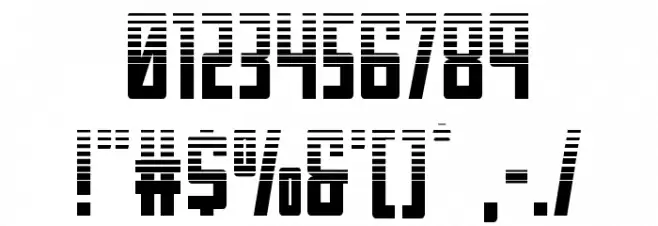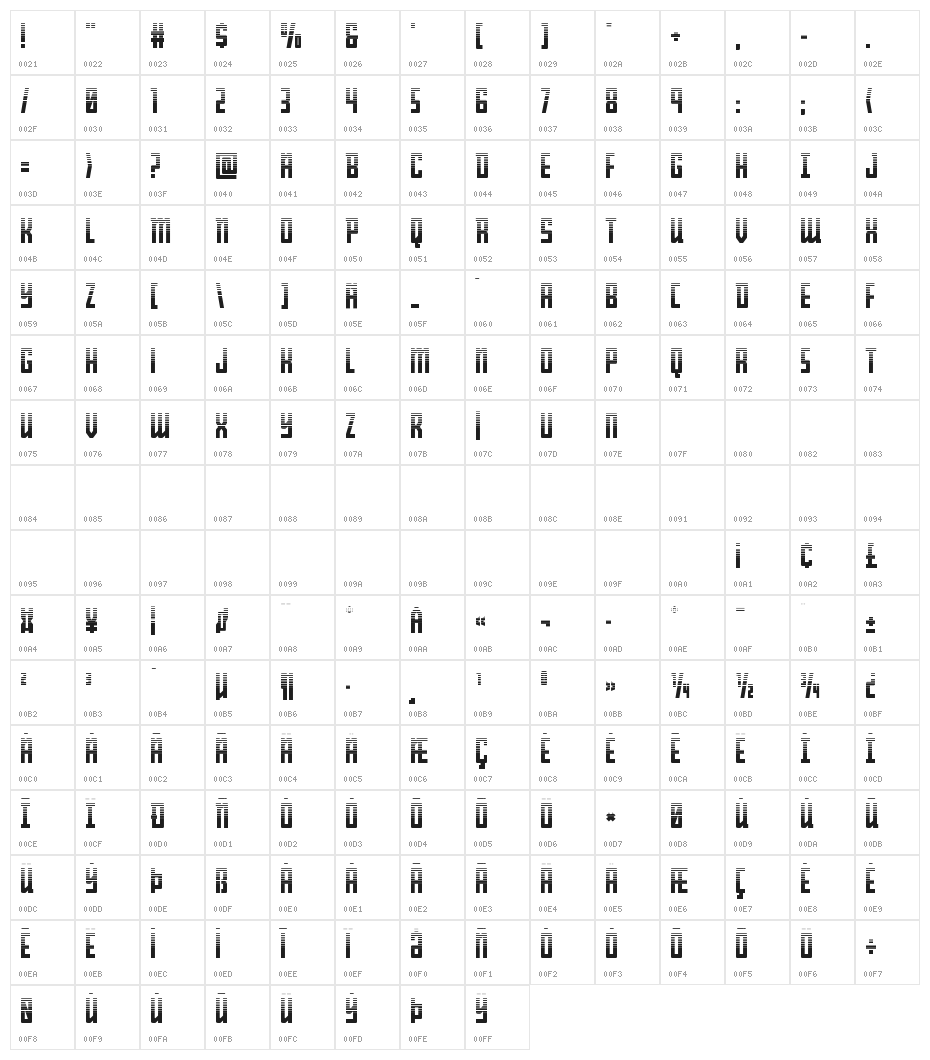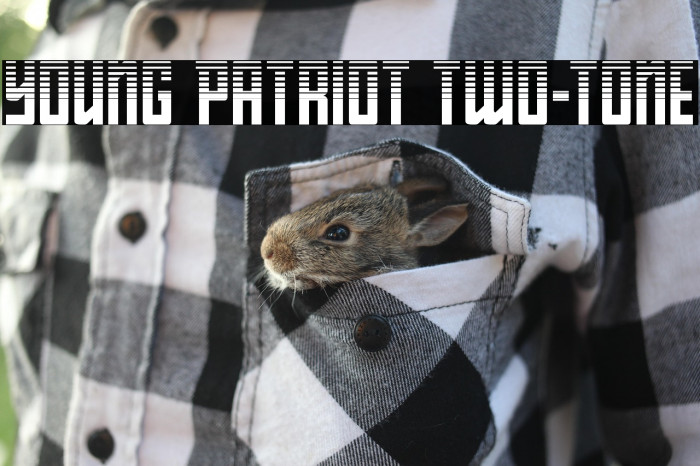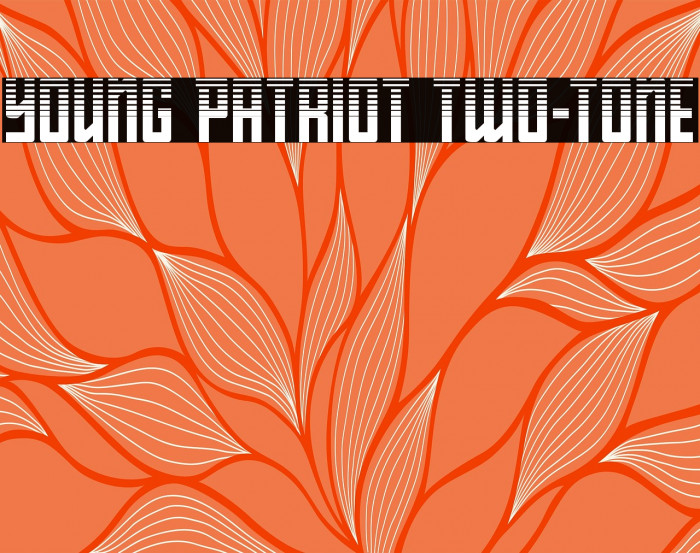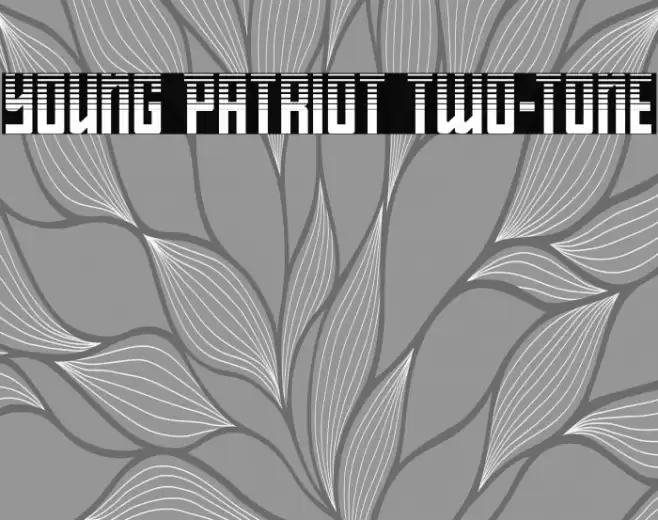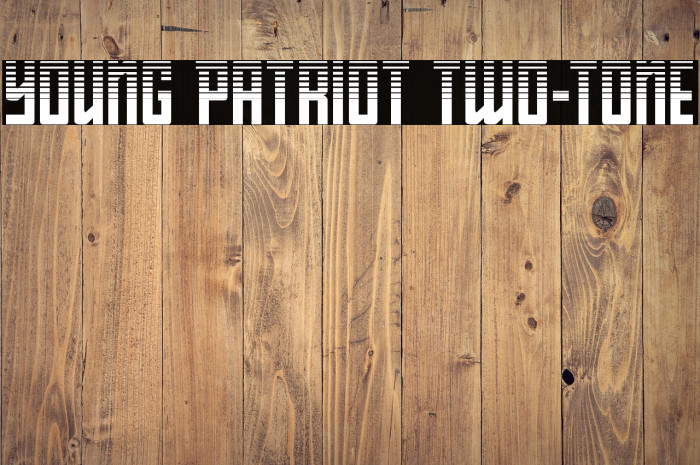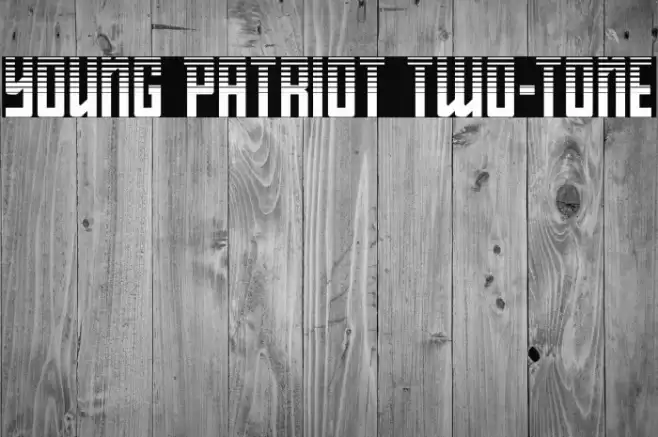
Young Patriot Two-Tone Font
Young Patriot Two-Tone Description
This font features a bold, geometric design with a two-tone effect that creates a sense of depth and dimension. The uppercase and lowercase letters are constructed with horizontal stripes that alternate between filled and unfilled spaces, giving it a modern and dynamic appearance. The numerals and special characters follow the same striped pattern, maintaining consistency across the character set. This font's unique style makes it stand out, ideal for projects that require a strong visual impact.